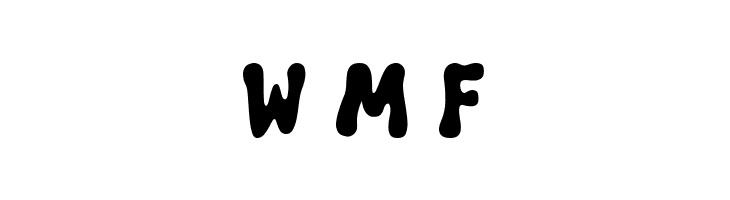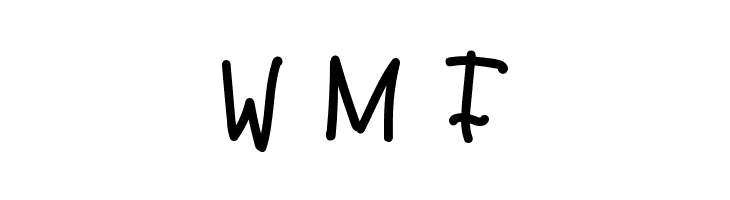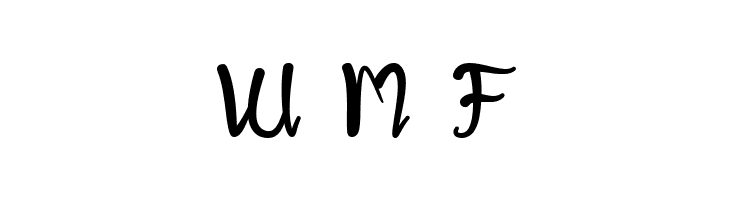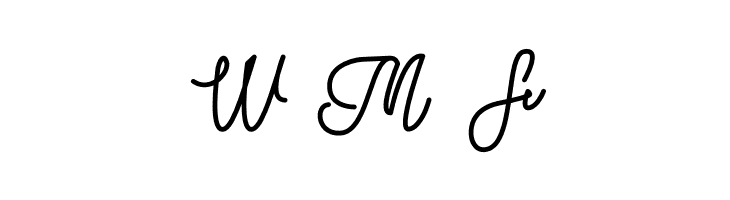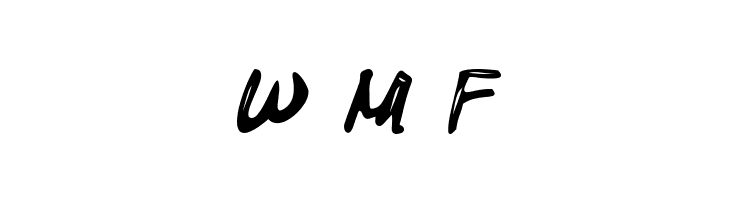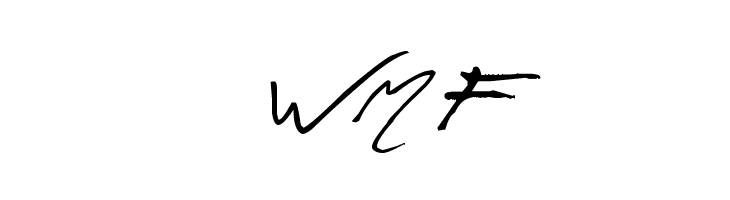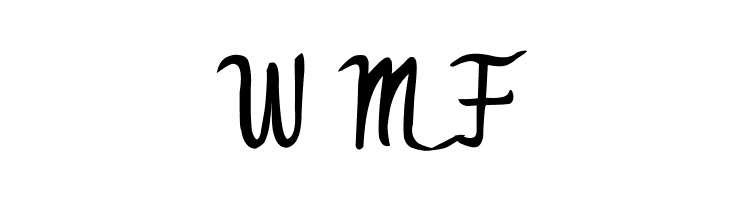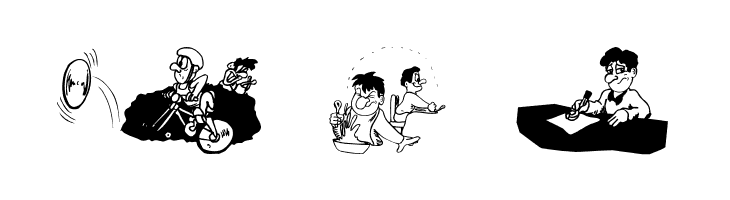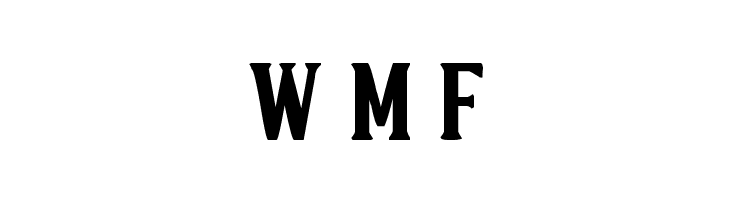
• Jelly Berry
A playful, handwritten font with bold, rounded strokes and a casual, friendly style.
• Jellyo
( Fonts by Kong Font )
A playful, bold font with rounded, bubbly characters and a whimsical style.
• Jendra
A lively, expressive script font with fluid, cursive strokes and playful loops.
• Jeullyta
A bold, energetic script font with fluid, expressive strokes.
• jey
A dynamic, cursive script font with expressive, flowing strokes.
• Jitting
A lively and dynamic script font with fluid, connected letterforms.
• Jokers
Cartoonish, prank-themed illustrative font with each character as a unique comic drawing.
• Jonny Quest Classic
( Fonts by Steve Ferrera )
A dynamic and playful script font with fluid, cursive letterforms.
• Joyeux
A bold, vintage-inspired font with a strong, authoritative presence.
• Joyeux Bold
A bold, vintage-inspired serif typeface with strong, thick strokes.